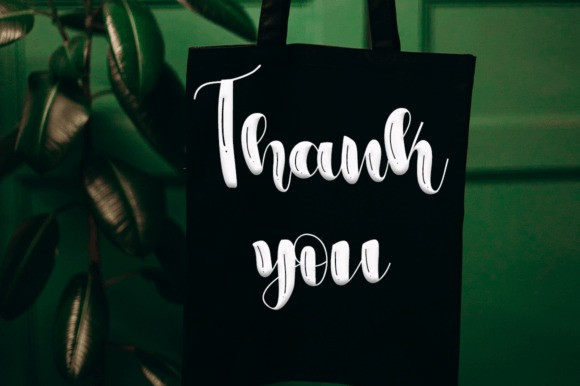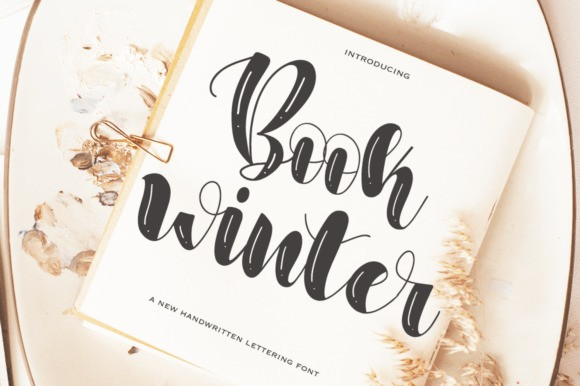
Book winter Font
Book winter Script Font. This striking handwritten font embodies both elegance and boldness, featuring sweeping curves and sharp angles that give it a commanding presence on the page. Book Winter’s graceful lines and confident strokes convey a sense of sophistication and flair, making it perfect for high-end branding, invitations, and headlines.